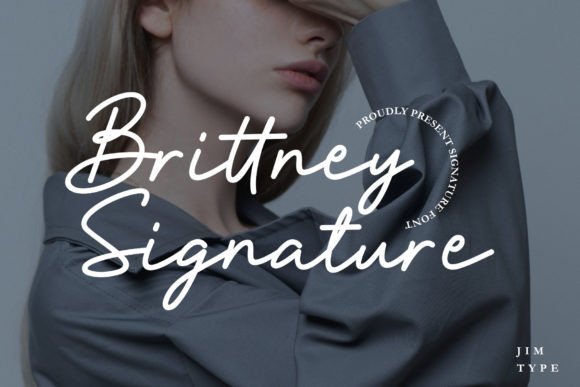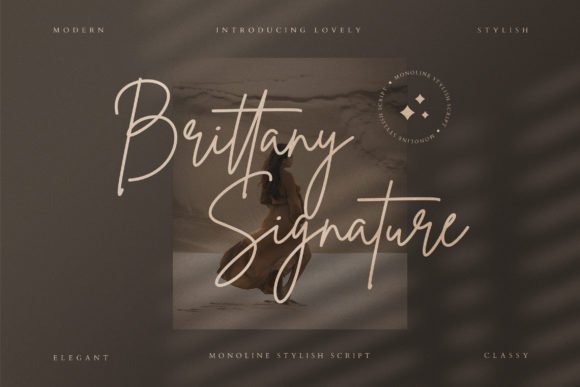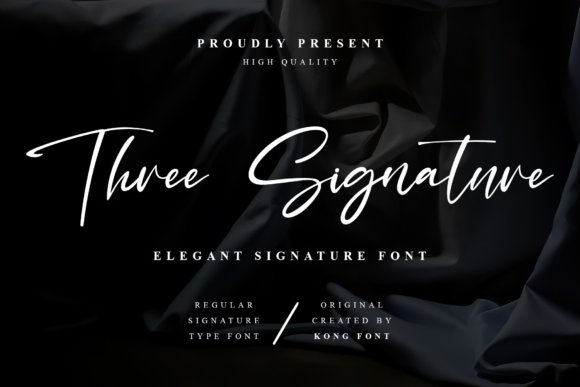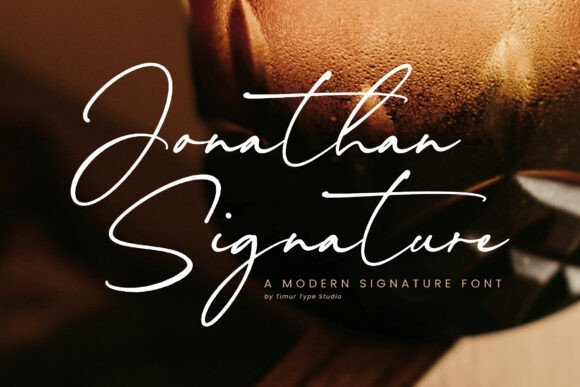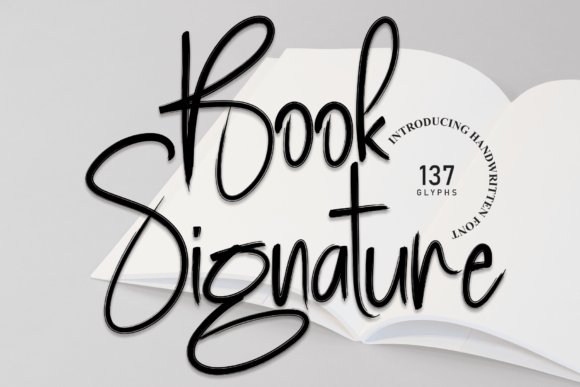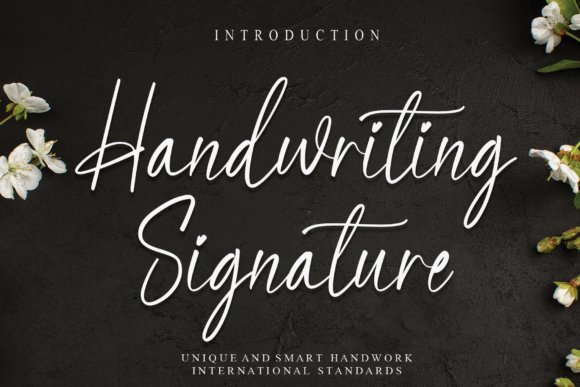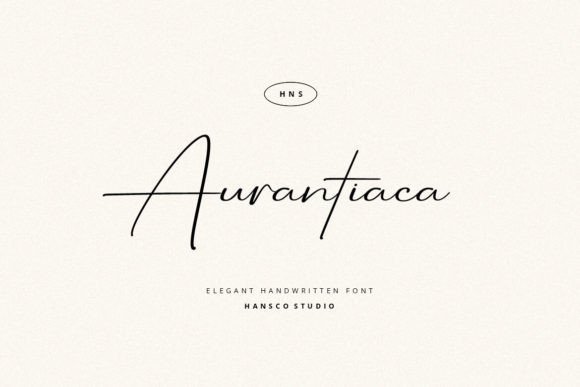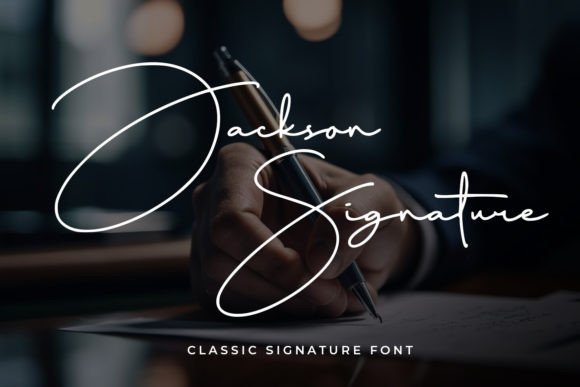
29 Elegant Signature Fonts for Beauty Brand for Boutique Skincare Labels and Social Media in 2026
Signature fonts for beauty brand are a fast way to give products a distinct personality, whether on a label, homepage hero, or Instagram tile. The right script or serif can signal luxe, playful, minimalist, or handmade sensibilities without a single extra element.
Below you’ll find 29 selections chosen with boutique skincare, indie cosmetics, and salon identities in mind. Each entry includes pairing ideas, usage notes, and quick licensing tips so you can test type on mockups before committing to packaging or site headers.
1. Three Signature Font
Three Signature Font
Three Signature Font is a modern, playful handwritten script that balances casual loops with controlled contrast. If you’re assembling a set of Signature fonts for beauty brand , Three Signature brings a cheerful, hand-sketched personality that reads approachable yet refined. Letterforms sit slightly slanted with varied stroke widths that add a tactile, crafted impression.
The file is PUA-encoded, so alternates, glyphs and decorative swashes are easy to access without advanced software; that makes layout work faster and more predictable. It pairs well with clean sans faces for labels or with light serif companions for boutique packaging, though small-size legibility can suffer if overused. Created by Kong Font Studio, this font feels lively for crafts, boutique logos and social headers where a friendly handwritten tone is desired.
My Recommendation: I would reach for Three Signature when a project calls for warmth and personality without looking amateurish. Its PUA glyphs speed up mockups and make decorative choices simple, which I value on tight timelines. Best suited for handmade product labels, craft shop branding and social graphics that need a human touch.
2. Brittany Signature Script
Brittany Signature Script
Brittany Signature Script delivers a fashionable, inky signature style with elegant curves and a natural rhythm across words. The strokes feel deliberately fluid, producing graceful ligatures and long swashes that read like a practiced autograph. Its high-contrast hairlines create an editorial feel that works beautifully in logos and wedding stationery.
Because the font emphasizes flowing shapes, careful kerning and thoughtful spacing improve legibility at headline sizes; avoid tiny body copy unless you apply adjustments. OpenType alternates and stylistic sets expand creative options for monogram marks and product labels, while pairing with a neutral sans keeps overall layouts modern and readable. Use this when you need a refined, handwritten presence rather than a casual script.
My Recommendation: I pick Brittany Signature Script when the brief asks for sophistication with a personal signature look. It gives brands an upscale handwritten voice and the alternates let me craft unique logotypes quickly. Ideal for boutique branding, elegant packaging and bespoke event invitations.
3. Brittney Signature Font
Brittney Signature Font
Brittney Signature offers a delicate, refined script that leans toward romantic luxury with soft loops and tapered terminals. Its flowing connections and subtle ornamentation create an intimate tone suited to high-end invitations and beauty packaging. The overall rhythm favors moderate slant and restrained contrast, which helps it read as polished rather than fussy.
Best results come from generous tracking and pairing with a simple sans or muted serif to avoid visual competition on labels or website headers. Alternates and swash characters add flourish for focal pieces, but limit ornamentation when space is tight to preserve clarity. This font is a strong choice for projects aiming for timeless elegance and a handcrafted feel.
My Recommendation: I’d use Brittney Signature for luxury wedding suites or boutique product lines that need a graceful handwritten identity. Its soft strokes convey romance without being ornate, and alternates let me tune the level of flourish for each application. It pairs especially well with minimal layouts and soft color palettes.
4. Jonathan Signature
Jonathan Signature
Jonathan Signature reads like a practiced handwritten signature, with fluid cursive strokes and a minimalist contemporary twist. Its thin-to-medium stroke contrast and elongated terminals produce graceful word shapes that suit boutique labels and editorial mastheads. Signature fonts for beauty brand are a natural fit for this style, where refined single-word marks and compact logotypes need personality. Use it for logos, packaging names, invitation headers, and watermark-style overlays.
Characters include accessible ligatures and alternate capitals that let you craft a handwritten mark without fiddly kerning. The font renders well at display sizes and keeps legibility on small labels thanks to open counters and moderate letter spacing. Pair it with a neutral sans for body copy or a refined serif for editorial headlines to preserve contrast. Included webfont formats and a clear glyph set make license rollout and asset building straightforward across print and digital touchpoints.
Type choices shape perception: a confident signature font can make a small line feel premium or give a natural brand a handcrafted voice. Use the curated list as a starting point, swap styles in your mockups, and pay attention to spacing, weight, and legibility at small sizes.
Before finalizing, confirm licensing for commercial packaging and consider simple pairings-one expressive signature font with a neutral sans or serif often reads well across product copy and social captions.